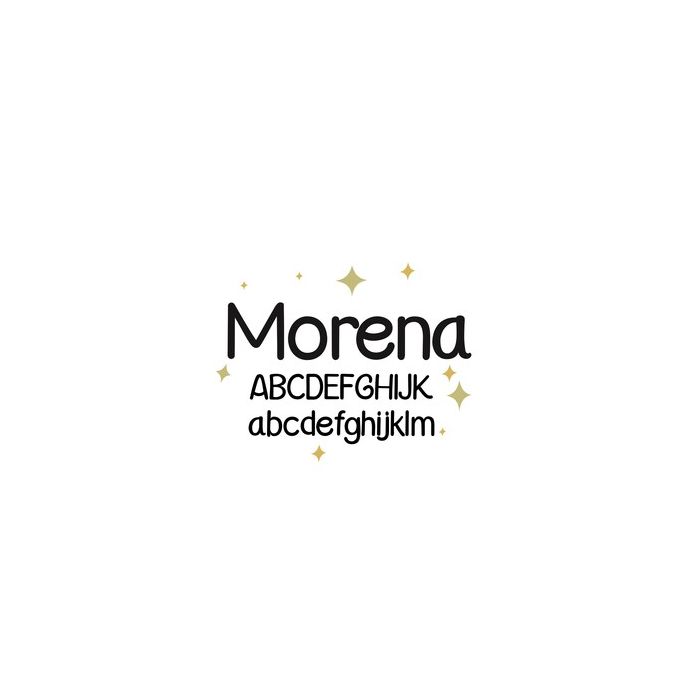
Morena comic style happy font, suitable for the design of any happy quote model. This font was originally created in a distinct and fresh comic style. Perfect for event projects, products, crafts, invitations, etc. Includes alphabet, numbers, and punctuation.